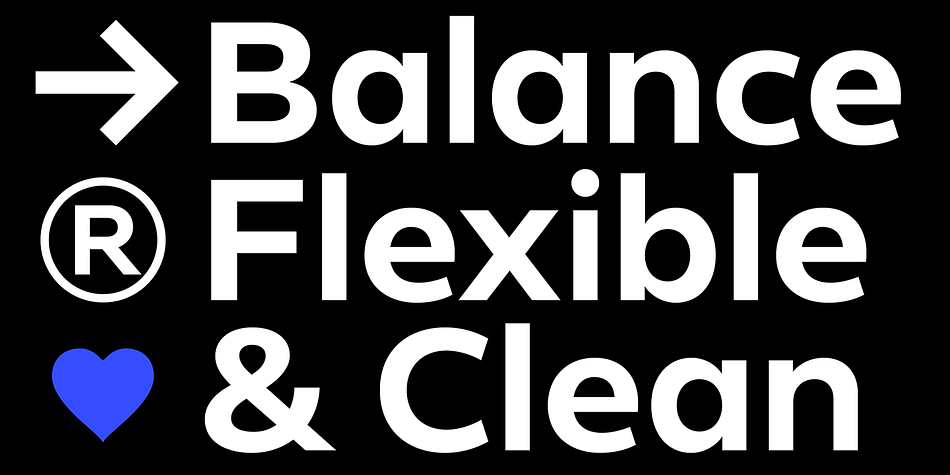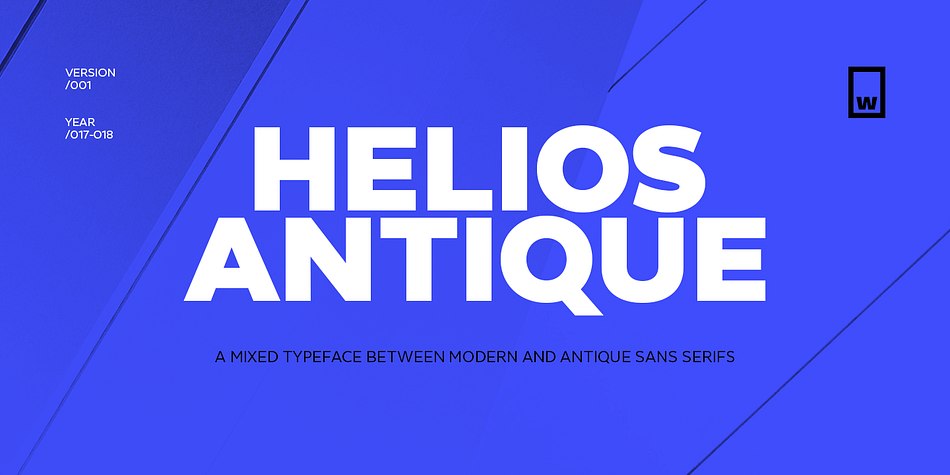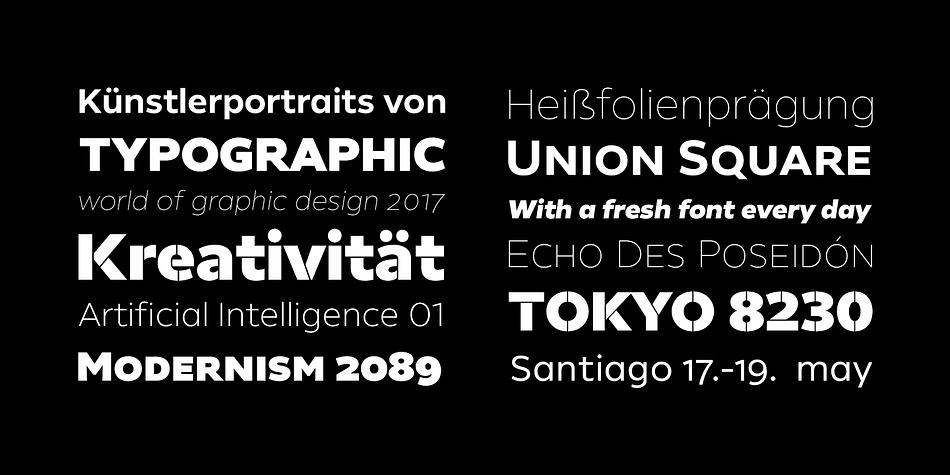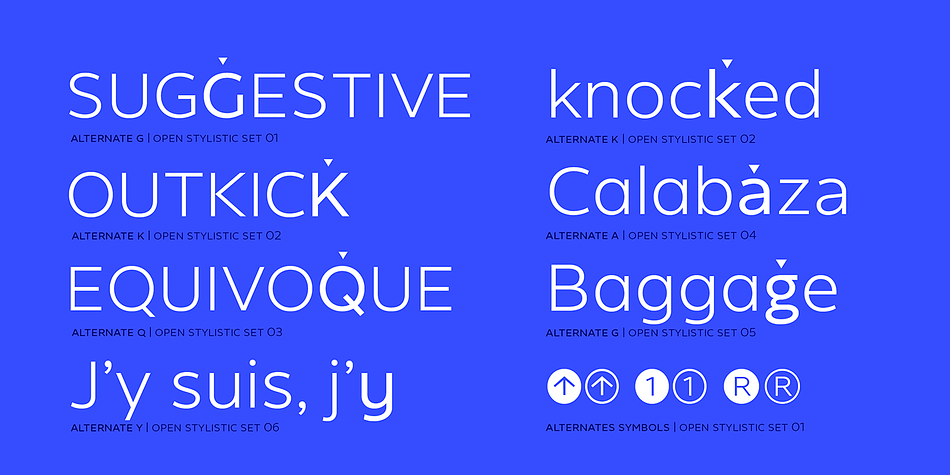
Helios Antique
Designed by Felipe Sanzana and Salvador Rodríguez, Helios Antique is a sans serif and stencil font family. This typeface has thirty-six styles and was published by W Type Foundry.
Helios Antique & Helios Stencil
Helios type family is the result of a mixture between the early sans serif and the modern trends of our era. Its rational structure is subtly wider than the majority of the first sans, generating a higher impact in its uses. All the typeface terminals are more open in order to balance better the whites and blacks of Helios, and where the strokes meet it has a deeper contrast giving more legibility to the reader. Furthermore, in some letters it is possible to see some prominent features such as the leg of the “R” and the tail of the “Q”, which are particular gestures that identify this type family.
Helios Stencil is the tough version of this type family. All the stencil gaps were measured rigorously, thus in small sizes it conveys a neutral aesthetic whereas in big sizes a display logic appears.
Helios Antique is composed by 36 styles, 782 glyphs and small caps. Besides, it has powerful OpenType features for each style, including alternates characters, ligatures, fractions, special numbers, arrows, extended language support and many more.